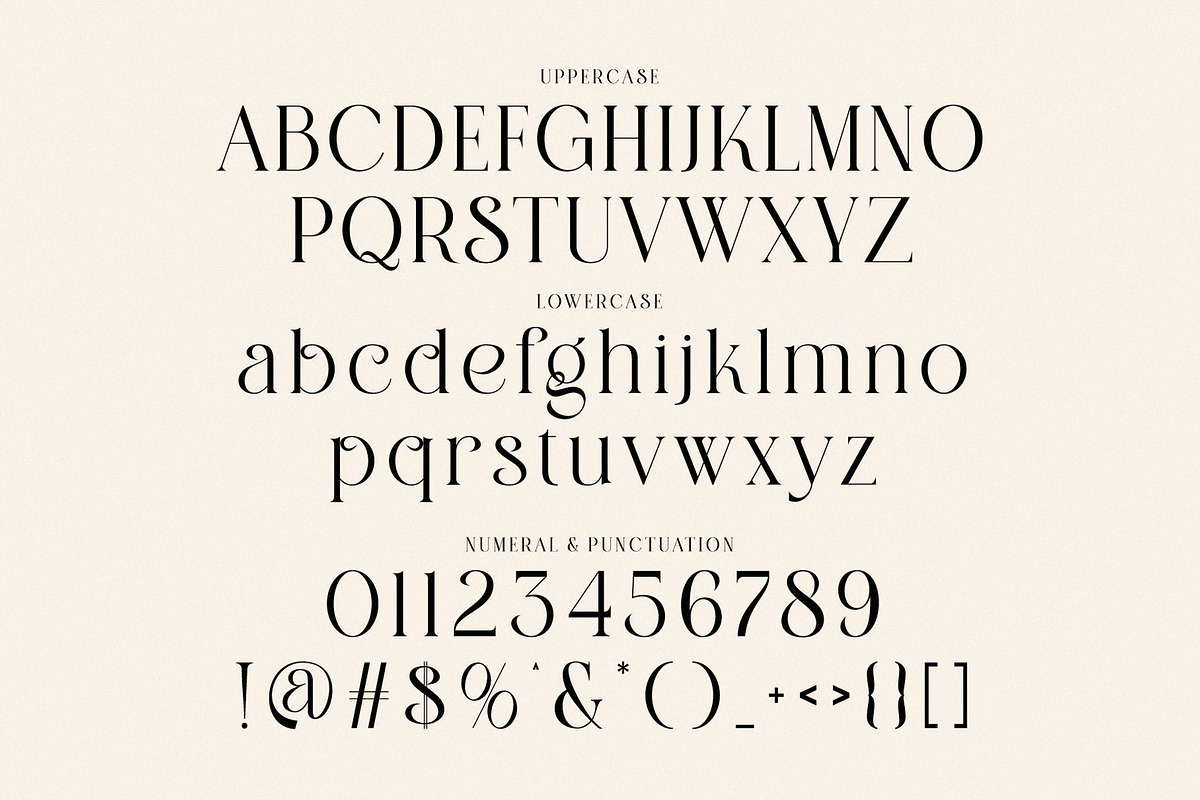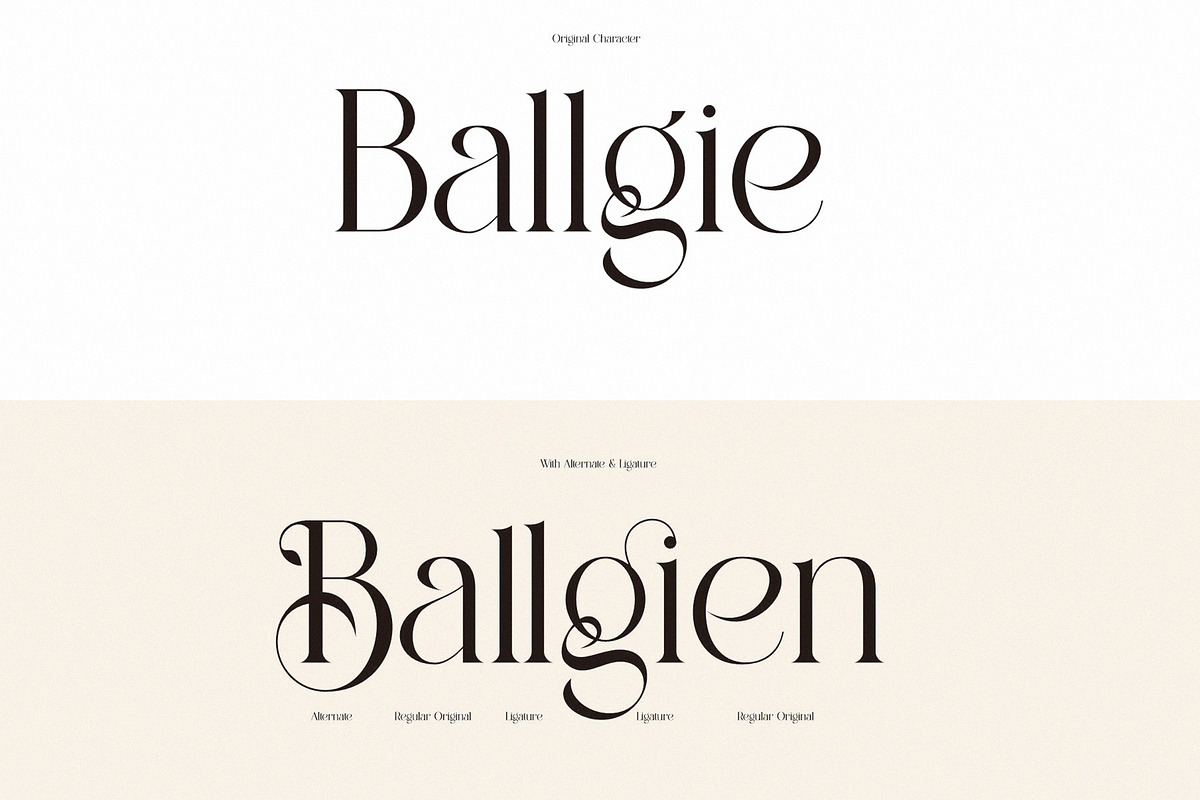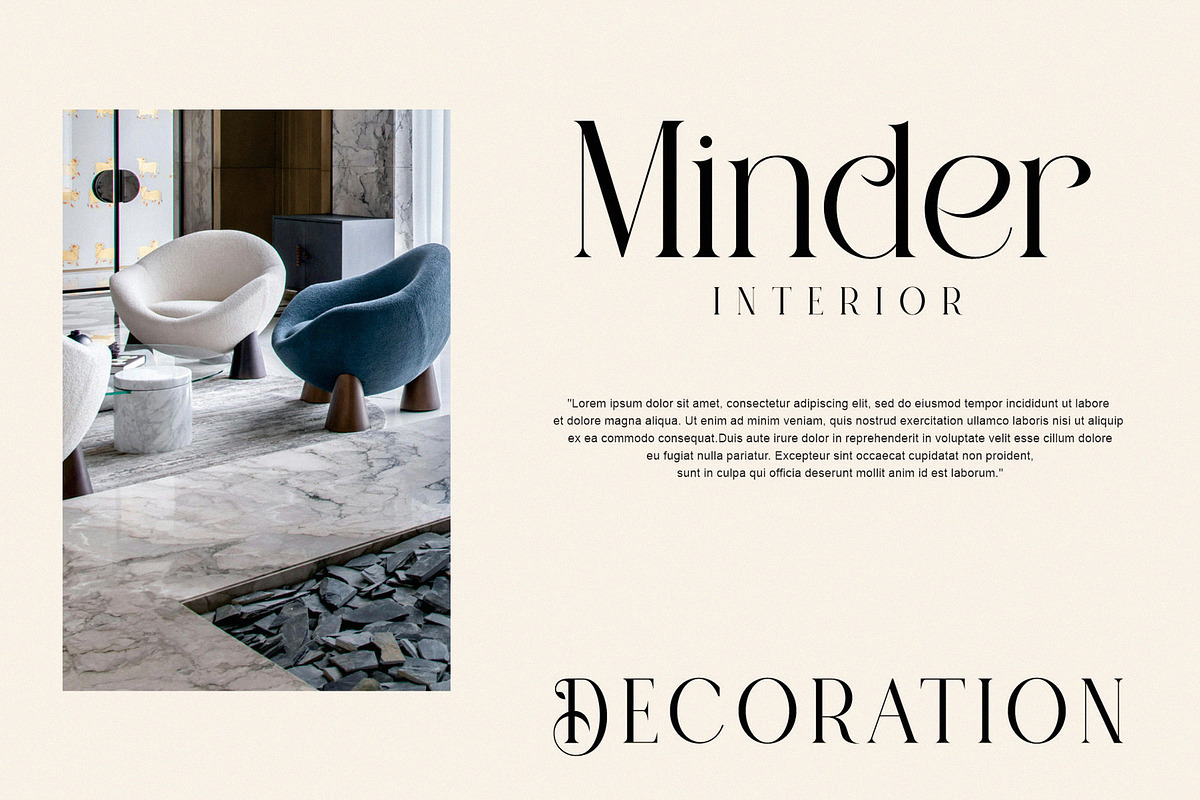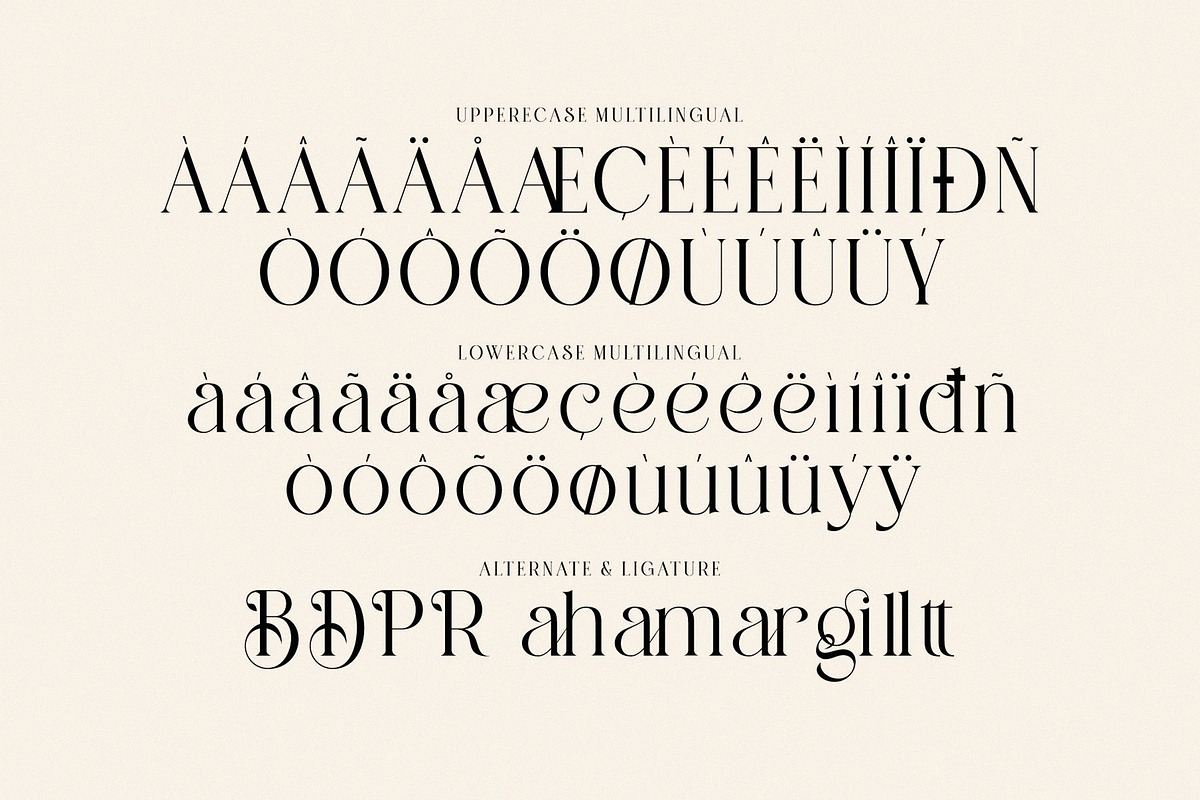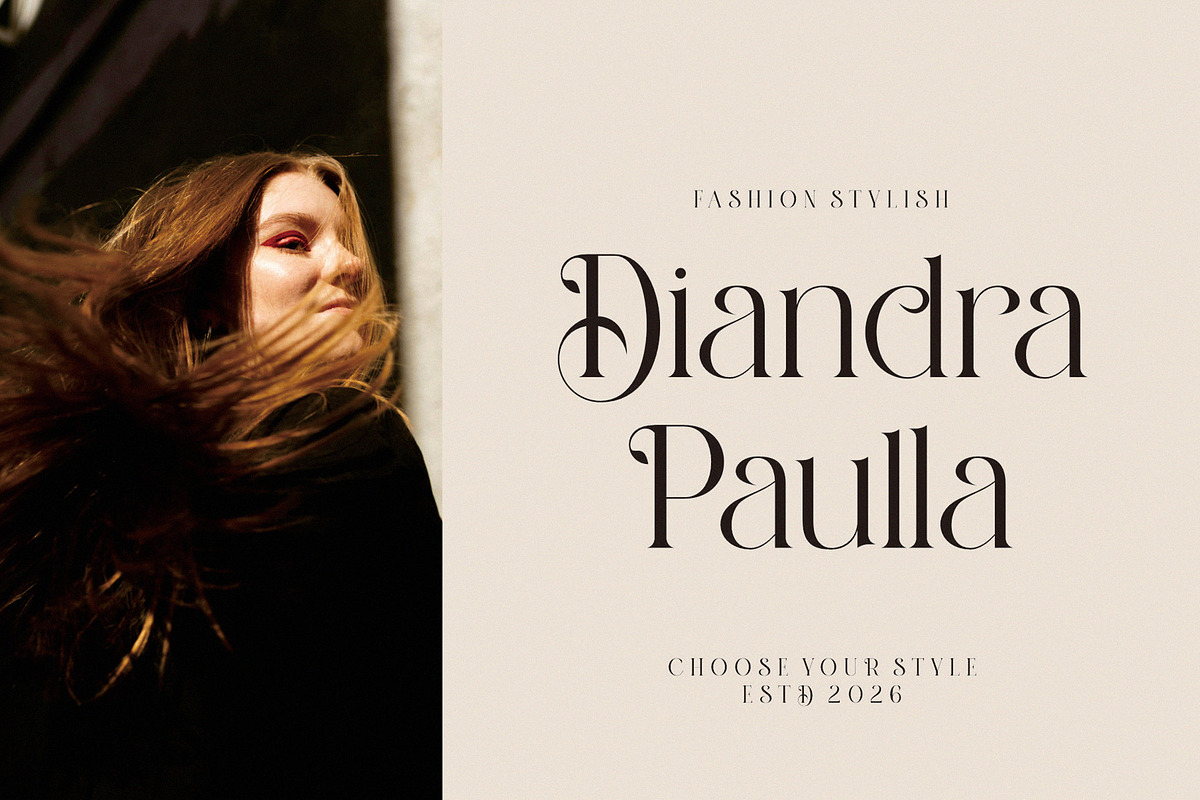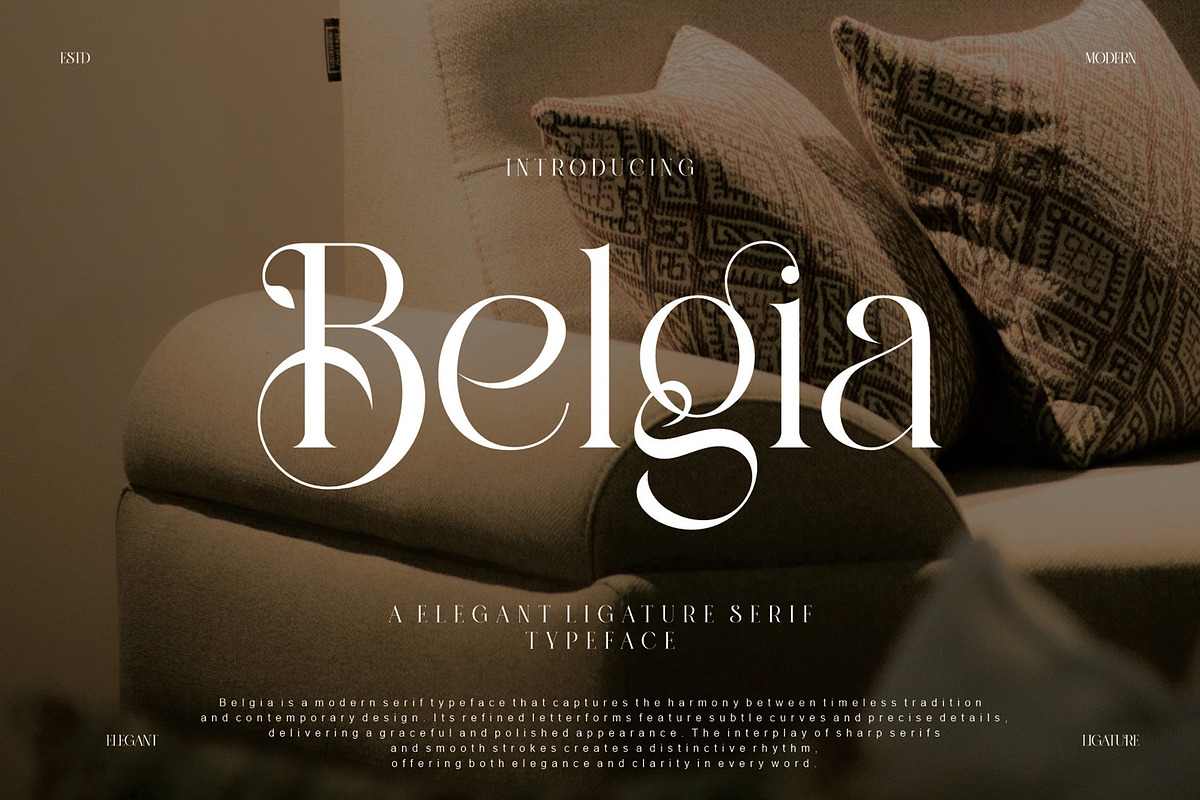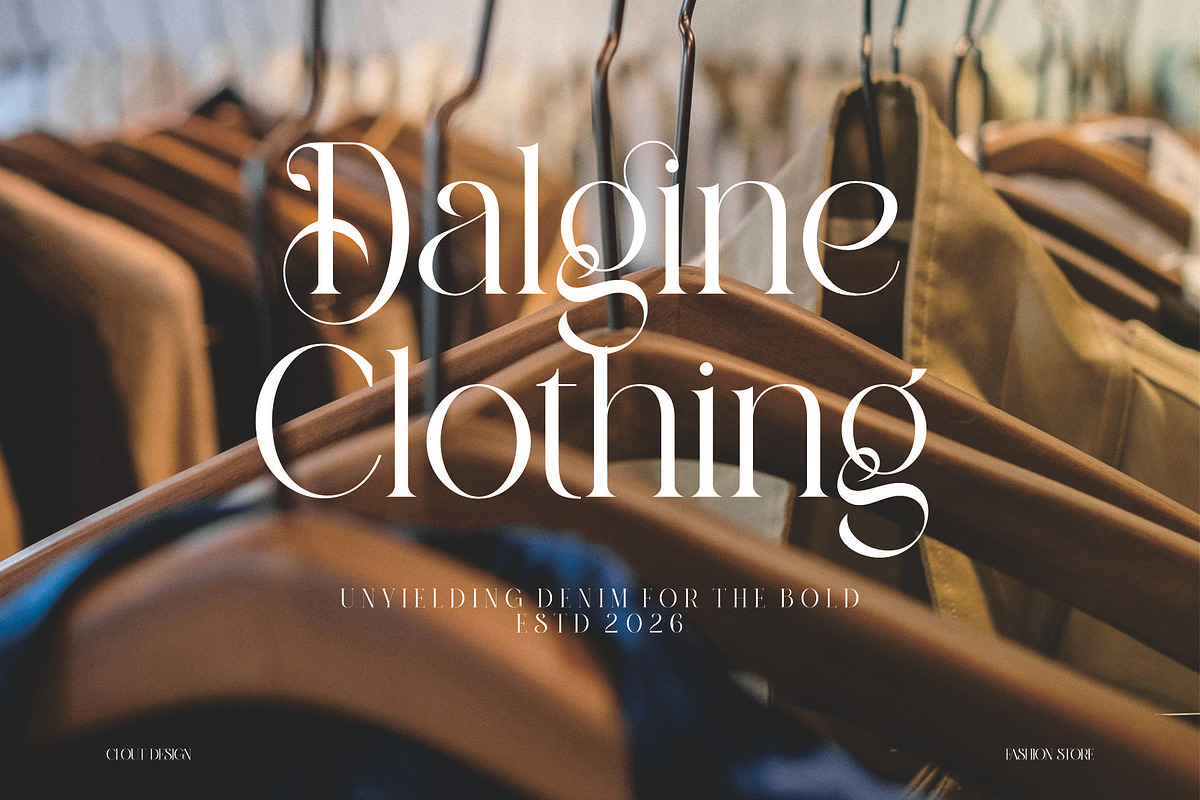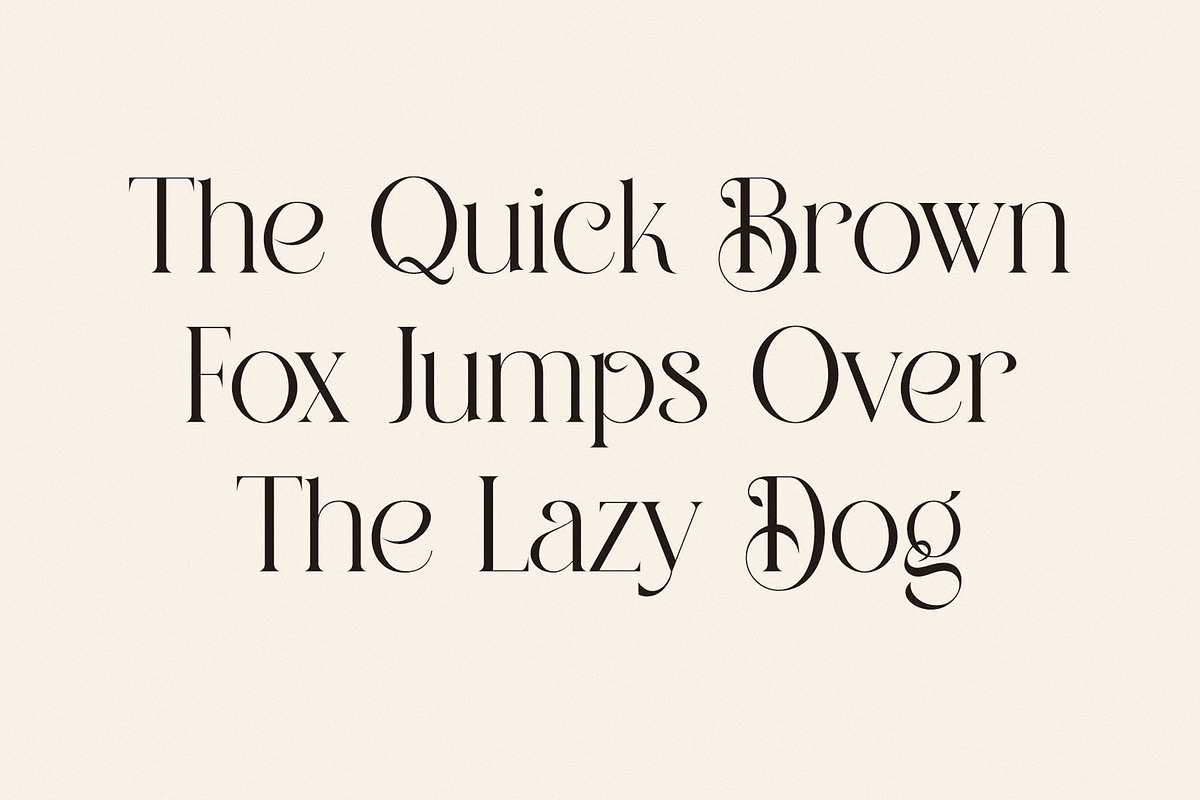
Belgia Elegant Ligature Serif
Belgia is a refined ligature serif font that blends timeless elegance with a subtle modern touch. Each character is crafted with precision, while its graceful ligatures create a smooth and harmonious flow. Perfect for premium branding, editorial layouts, and invitations, Belgia delivers a sophisticated and luxurious feel.